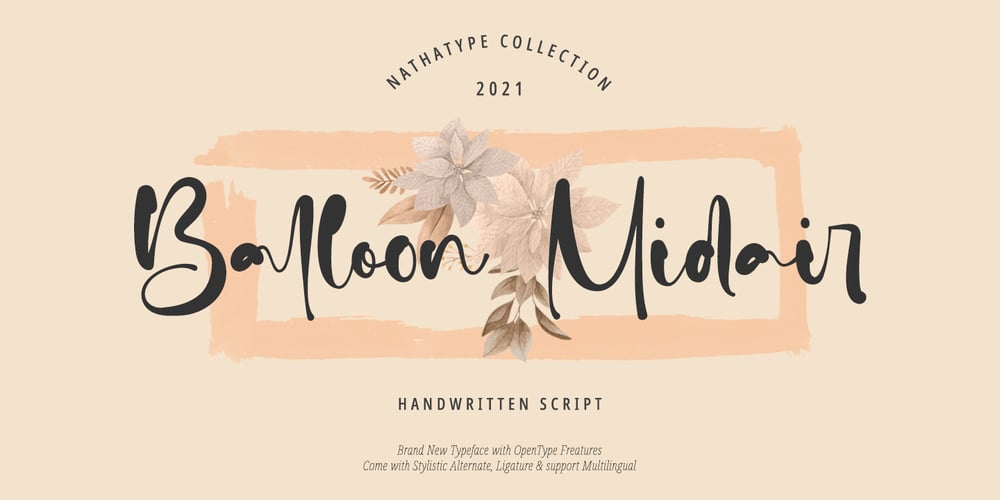
Ballon Midair
Ballon Midair font
Ballon Midair Font Family was designed by Donis Miftahudin and published by Nathatype. Ballon Midair contains 1 styles and family package options. Wanna make your branding radiate elegance? Something that’s versatile, original, stylish, and eternal? Get ready to explore to a world of magic, laughter, and butterflies. Your branding will make everyone happy! Balloon Midair-A Handwritten FontA beautifully handcrafted font that’ll make your guests sing and elevate your projects! Every stroke and curve was created to spread happiness and elegance. Use it to create standout headings, promote your online sales, Instagram quotes, and even printed materials like business cards, t-shirts, or invitations. Balloon Midair includes Multilingual Options to make your branding globally acceptable. Features: Ligatures Stylistic Set PUA Encoded Numerals and Punctuation Thank you for downloading premium fonts from Nathatype